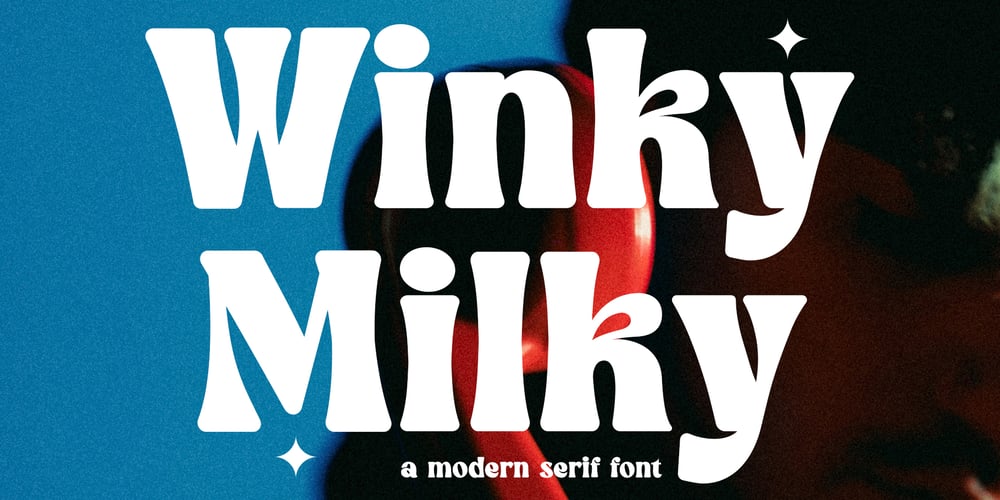
Winky Milky Font Family was designed by Graphicxell and published by Graphicxell. Winky Milky contains 1 styles and family package options. Winky Milky is a unique and very elegant font for branding and logo designsElegant serif typeface combined with a classy and modern style. This type of font is very suitable for your various needs such as branding projects, logos, wedding designs, social media posts, advertisements, product packaging, product designs, labels, photography, watermarks, invitations, stationery, and any project, created with high level of readability.you will not be disappointed if you buy this font!!